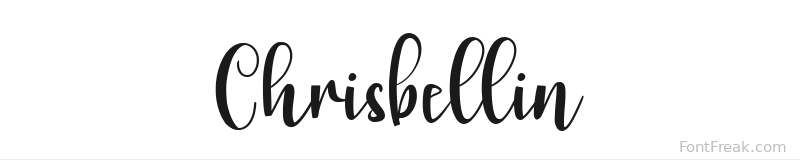
Chrisbellin
Chrisbellin by Kong Font is a captivating script font that elegantly combines fluidity with charm. This freeware font, released in 2021, showcases a graceful design characterized by its smooth, flowing lines and playful curves. The stroke weight varies, providing a delightful contrast that adds depth to each character while maintaining legibility. The spacing is well-balanced, allowing for a harmonious flow in text, making it a versatile choice for various applications.
The visual characteristics of Chrisbellin make it particularly suitable for creative projects that require a personal touch. Its decorative elements, including whimsical swirls and loops, elevate the aesthetic, making it ideal for wedding invitations, where romance and elegance are essential. Additionally, this font shines in designing greeting cards, capturing attention with its warm and inviting style. Restaurant menus can also benefit from Chrisbellin's unique flair, adding a sense of sophistication to the dining experience. Beyond these, it serves well in branding materials, where a distinct identity is crucial for small business owners looking to make an impression.
Targeting graphic designers, content creators, and small business owners, Chrisbellin appeals to those seeking to infuse their projects with a sense of personality and style. Its versatility allows users to explore various creative avenues, ensuring that it fits seamlessly into any design scheme.
What sets the Chrisbellin font apart is its ability to convey emotion through typography. The combination of its artistic flair and readability makes it a standout choice for anyone looking to create memorable visual content. The Chrisbellin font free download offers an accessible opportunity for creators to enhance their designs with a touch of elegance and whimsy.